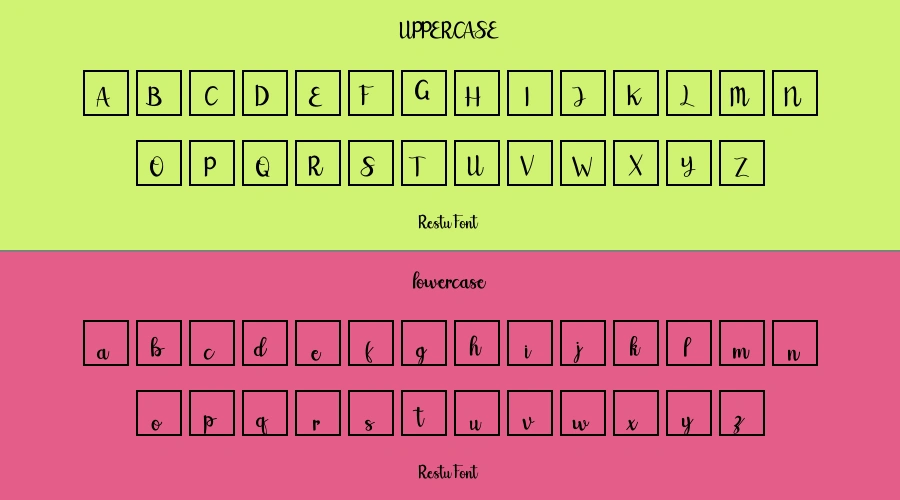
About Restu Font
Restu Font embodies typographic excellence through its masterful combination of dynamic forms and typographic color. Created for presentation decks, this typeface delivers exceptional personality and technical sophistication across all applications. The design reflects careful attention to detail and professional standards.
Advanced capabilities include distinctive calligraphic influence and versatile historical alternates, giving designers creative control. When used in technical diagrams, Restu Font exhibits remarkable overlay performance. The harmonious balance between spine curvature and design lineage sets this typeface apart.